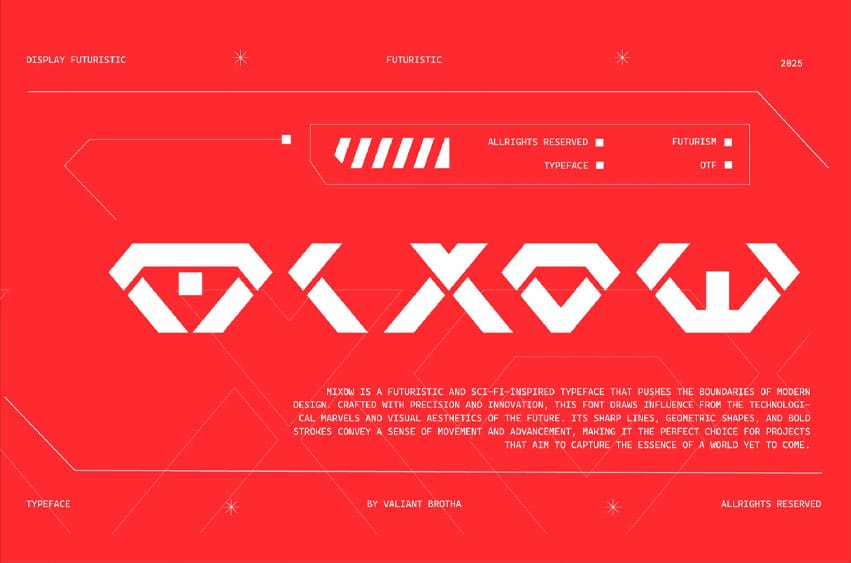
Mixow Font is a versatile and contemporary typeface that blends sleek modernity with artistic flair. With its unique balance of sharp angles and smooth curves, this font offers a distinct yet harmonious look. The font’s design allows it to work seamlessly across a wide range of applications, from bold headlines to more subtle body text.
Mixow Font is ideal for creative projects that seek to stand out, offering both legibility and an artistic touch that gives your designs a memorable and stylish edge. Whether used in branding, advertising, or digital media, Mixow Font adds an unmistakable character to any design.